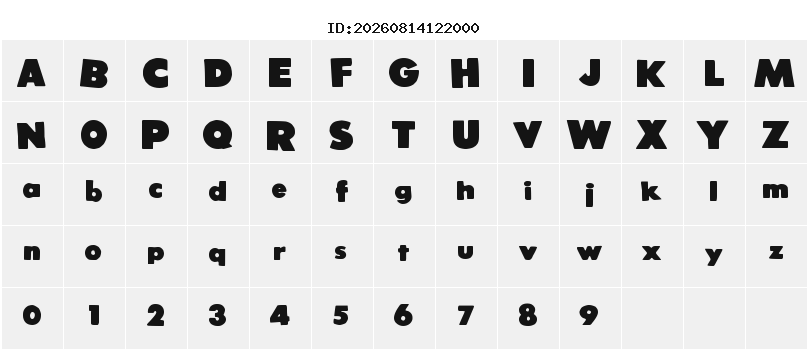
• Font Name: StrongVoid
• Full Font Name: StrongVoid
• Version: Version 1.00 July 24, 2014, initial release
• Designer: Xerographer Fonts Max Infeld
• Manufacturer: Xerographer Fonts
• Description: Made at Xerographer Studios in San Francisco,CA
About StrongVoid.ttf
StrongVoid.ttf is a modern, elegant sans-serif font designed for ultimate readability and visual harmony. Perfect for branding, headlines, web design, and print materials.